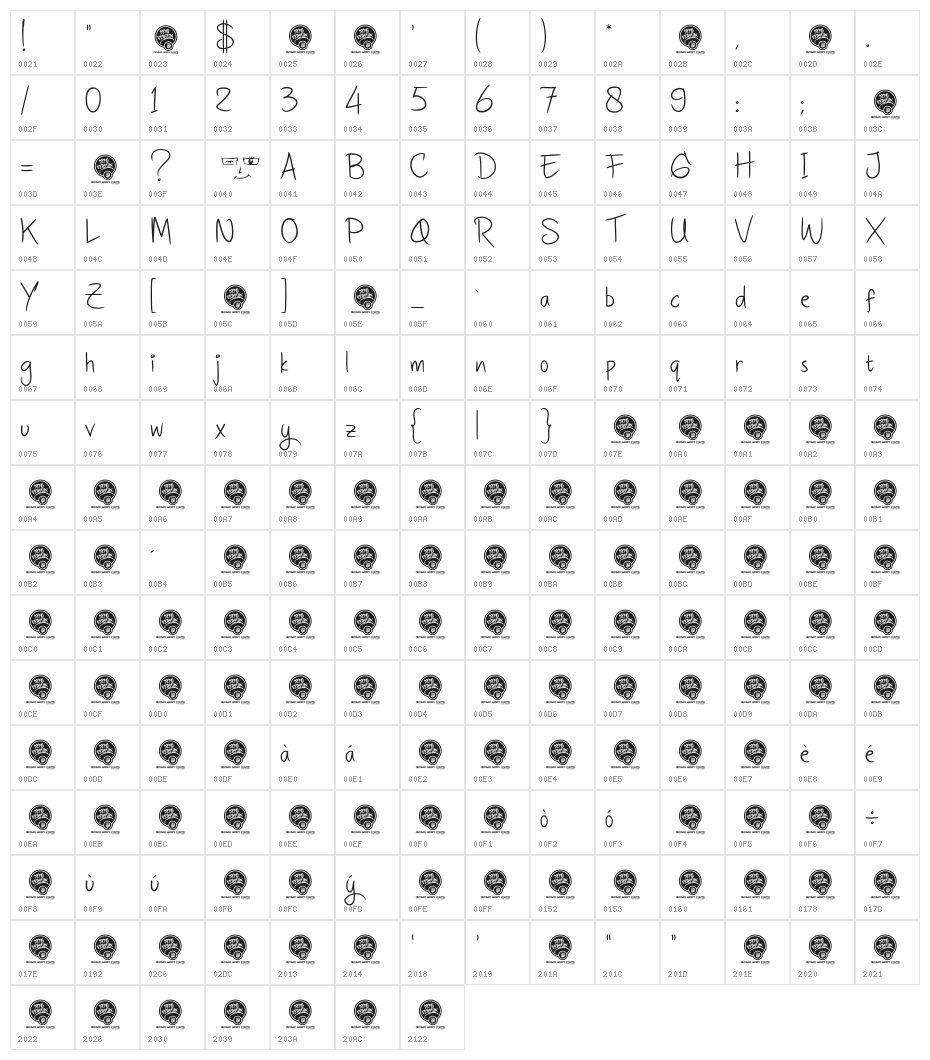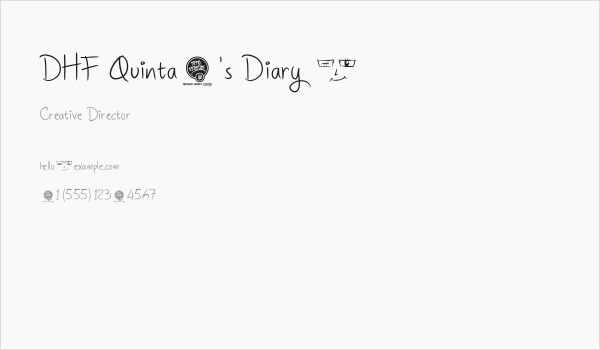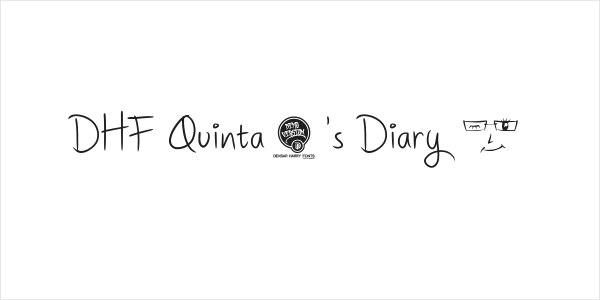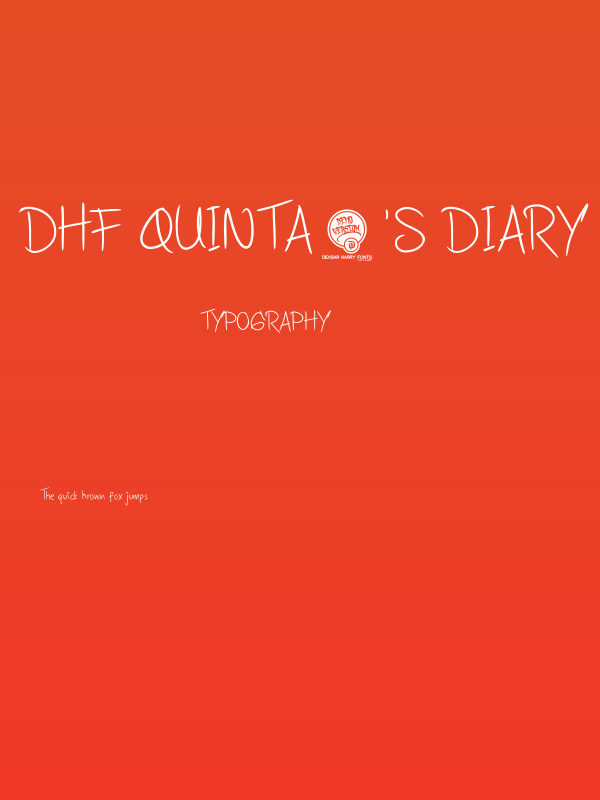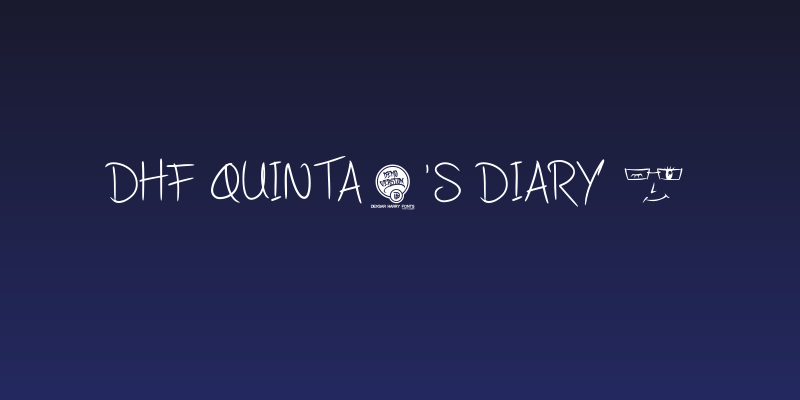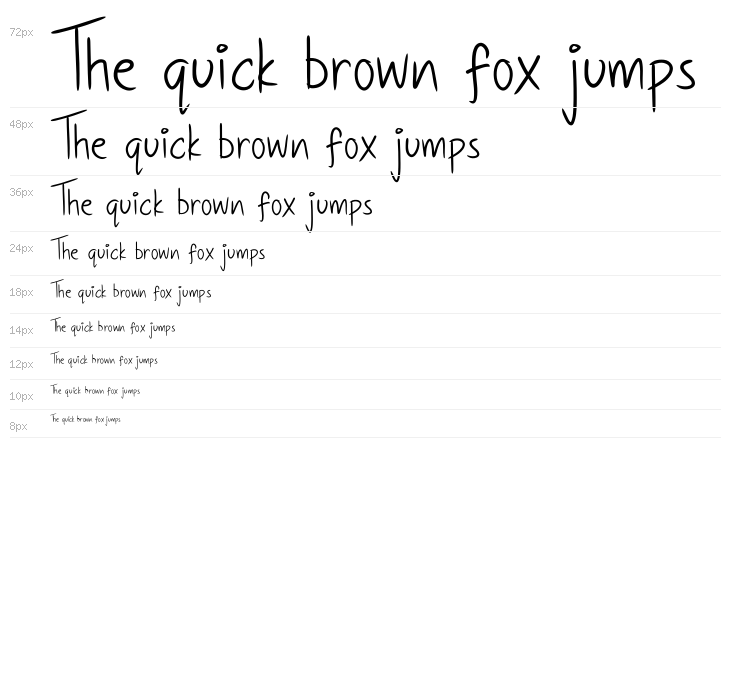
DHF Quinta's Diary @ Font
DHF Quinta's Diary @ Description
This font features a playful and whimsical handwritten style, characterized by its flowing and slightly irregular letterforms. The uppercase letters are tall and narrow, with a slight slant that adds to the casual, informal feel. The lowercase letters maintain this playful aesthetic, with some characters featuring unique loops and curves that enhance the font's charm. The numerals are consistent with the overall style, offering a cohesive look across all characters. Special characters are included, maintaining the same playful and informal design. This font is ideal for projects that require a personal touch, such as invitations, greeting cards, or creative branding.